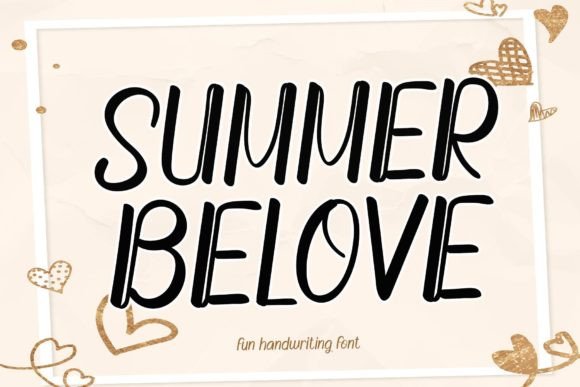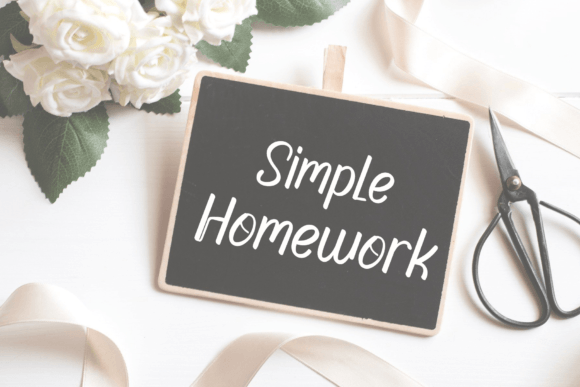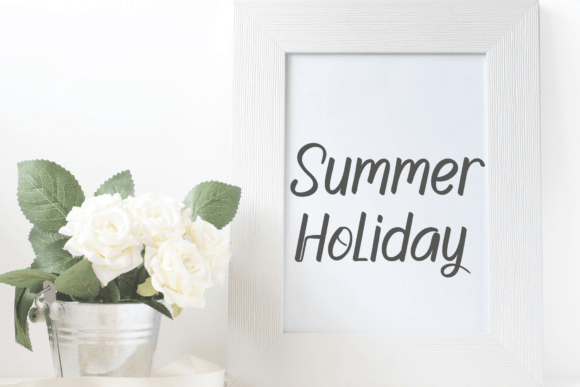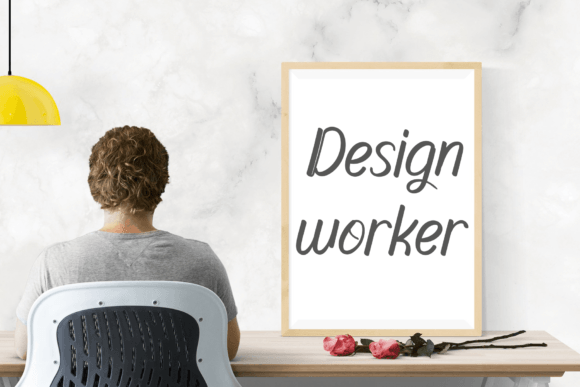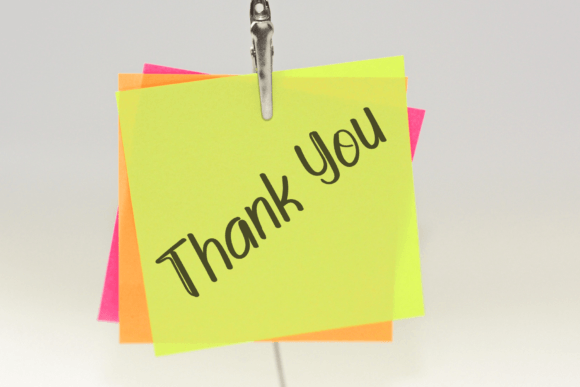
About Summer Belove Font
“Summer Belove” is not just a font; it’s a superb handwritten typeface that adds a touch of elegance and flair to your creative work. With its graceful and curvy lines, this font is designed to make your projects stand out with a unique charm. Ideal for a wide range of applications, from product packaging and branding projects to magazine covers, social media graphics, wedding materials, or any context where expressive and stylish typography is essential.
The elegance of Summer Belove shines through its handwritten aesthetic. The curvy lines and fluid strokes contribute to a sense of sophistication, making it a perfect choice for projects that require a touch of class and individuality.
For product packaging and branding projects, Summer Belove becomes a key element in creating a distinctive visual identity. The font’s superb design enhances the overall appeal, ensuring that your products and brand leave a lasting impression on your audience.
Magazine covers benefit from the stylish allure of Summer Belove. Its unique curves and elegant lines can transform ordinary covers into eye-catching and trendy designs, instantly capturing the attention of readers.
Social media graphics, a realm where visual impact is crucial, come to life with the expressive nature of Summer Belove. Whether it’s Instagram posts, Facebook covers, or Pinterest graphics, the font adds a level of creativity and sophistication that elevates your online presence.
Weddings, a celebration of love and beauty, find the perfect companion in Summer Belove. The handwritten charm of the font enhances wedding invitations, signage, and other materials, adding a romantic touch to the special day.
Using Summer Belove to express words above backgrounds allows you to play with the font’s elegance in various contexts. From motivational quotes to artistic expressions, the font becomes a versatile tool for conveying messages with style.
In conclusion, Summer Belove is a superb handwritten font that transcends its typographic function. It becomes a design element that adds elegance and uniqueness to your work, making it stand out in a crowd. Whether you’re working on product packaging, branding, social media, or weddings, let Summer Belove be the choice that brings a touch of sophistication to your creative projects.